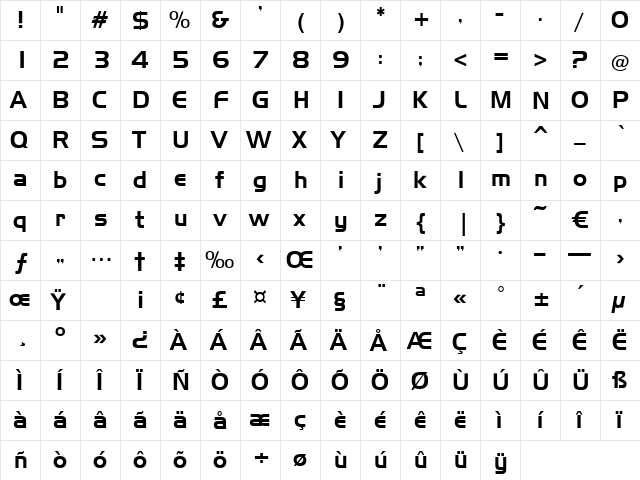
Jobber Regular
Design Context for Jobber Typeface
Jobber takes a measured approach to typography — its balanced proportions and neutral character make it a reliable workhorse for both digital and print work.